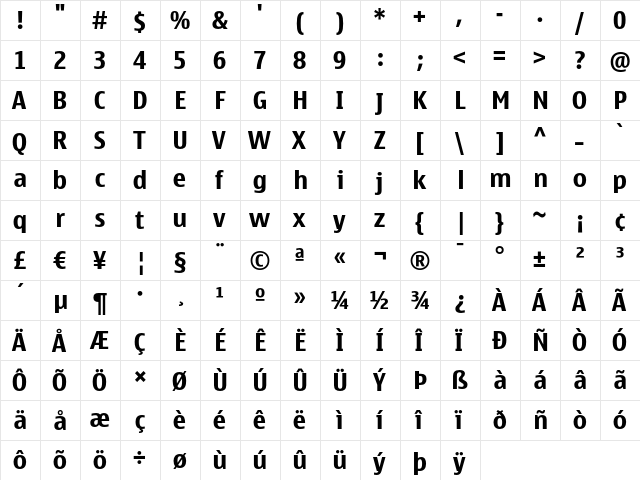
NokiaLarge Bold
Design Context for NokiaLarge Typeface
NokiaLarge offers clean, dependable letterforms without strong stylistic allegiance, making it a practical choice for designers who need flexibility. The heavy weight commands attention and anchors typographic hierarchies.
Pro Tip: Pair NokiaLarge with a font of contrasting weight or personality to build a more expressive typographic hierarchy.